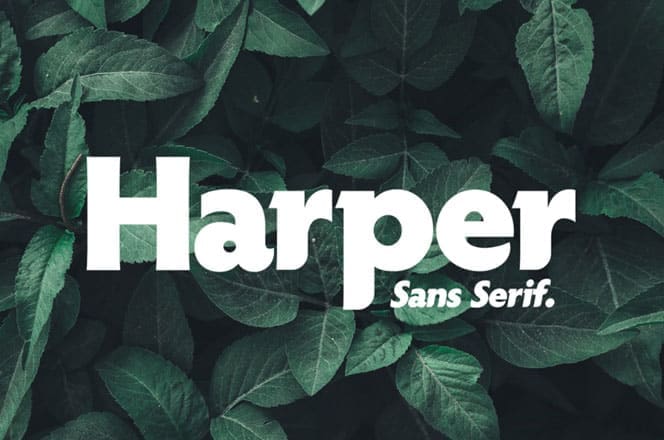
Harper Sans Serif Font
Harper Sans Serif Font is a cool, versatile, and thick lettered display font. It will look stunning on any poster flyer or print. Use this font for your designs and explore its endless possibilities.